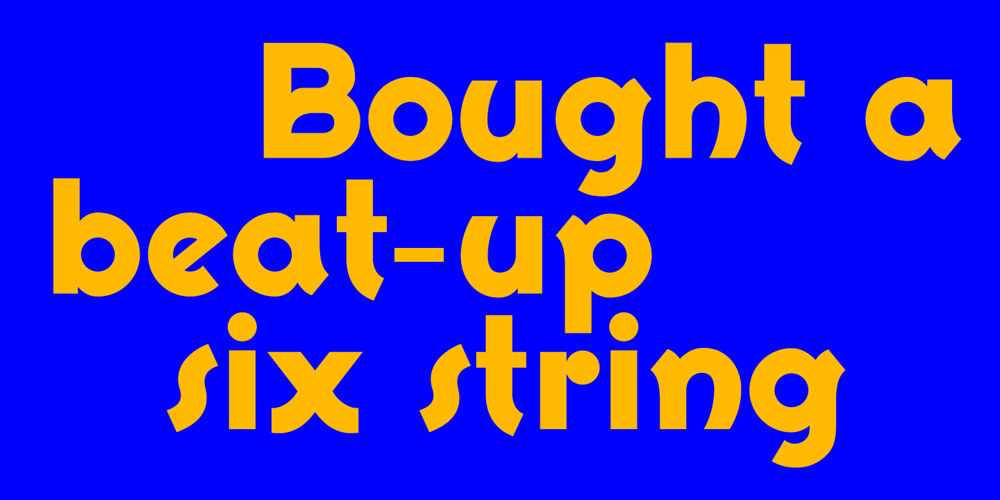
AT Move Frutta Font Family was designed by André Toet and published by André Toet Design. AT Move Frutta contains 1 styles and family package options. FRUTTA (Fruit) is a new typeface made with the ever expanding food industry in mind. But don’t let that deter you from using our font on the cover of the forthcoming cd of the Black Keys or Beady Eye or Damon Albarn or Paul Weller or Daft Punk or Whatever… Concept/Art Direction/Design: André Toet © 2017